Choosing the best fonts for food packaging and label design is one of the most important decisions in branding. Fonts are often the first thing customers notice when they see a food product on a shelf or online marketplace. A well-chosen typeface can instantly communicate flavor, quality, and trust, while a poor choice can make even the best product feel unappealing.
In this article, we will explore how typography influences food packaging, what characteristics make a font effective, and the most common font styles used in food and beverage branding today.
Why Fonts Matter in Food Packaging and Label Design
Food packaging is not just about aesthetics. It plays a critical role in consumer decision-making.
Fonts Influence First Impressions
Consumers typically decide within seconds whether a product attracts them. Fonts help convey whether a product is:
- Premium or affordable
- Traditional or modern
- Fun or professional
A bold handwritten font might suggest homemade quality, while a clean sans-serif font often communicates freshness and health.
Typography Builds Brand Trust
Clear and readable fonts make labels easier to understand. This is especially important for ingredients, expiration dates, and nutritional information. Trust increases when consumers can read labels effortlessly.
Key Characteristics of the Best Fonts for Food Packaging and Label Design
Before selecting a font, it’s important to understand what makes typography effective in food packaging.
1. High Readability at Small Sizes
Food labels are often small. Fonts must remain legible even when printed in compact formats.
2. Strong Personality Without Overpowering
The font should support the product’s identity, not dominate it. Overly decorative fonts may look attractive, but they reduce clarity.
3. Versatility Across Materials
Packaging appears on paper, plastic, glass, and digital screens. The best fonts perform well across all mediums.
Best Serif Fonts for Food Packaging and Label Design
Serif fonts are often used to communicate tradition, quality, and authenticity.
Aeloria – Elegant Serif Font for Editorial, Branding & Professional Design
Aeloria is an elegant serif font ideal for editorial, branding, and professional design projects. With timeless proportions and high readability, it adds sophistication and versatility to any creative work.
Gellisto – Modern Ligature Serif Font
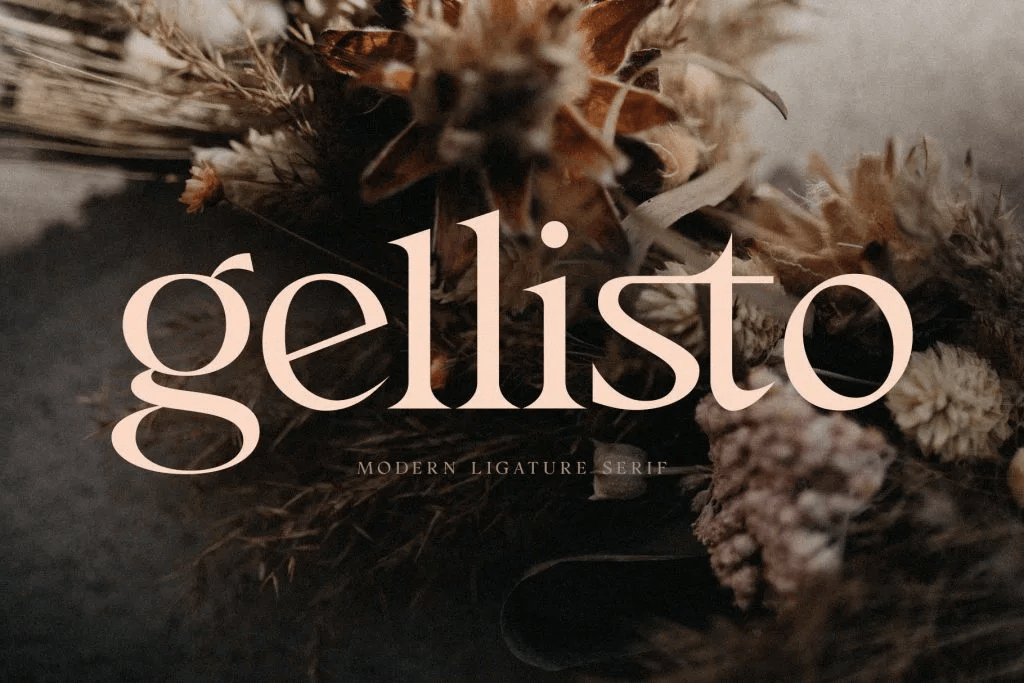
Gellisto is a modern and classy serif typeface designed for elegance and versatility. Perfect for branding, fashion, magazines, packaging, and social media, it brings a refined touch to any design.
Best Sans-Serif Fonts for Food Packaging and Label Design
Sans-serif fonts are widely used for modern, clean, and minimal food branding.
Infogate – Modern Sans Serif Font for Branding & Digital Design
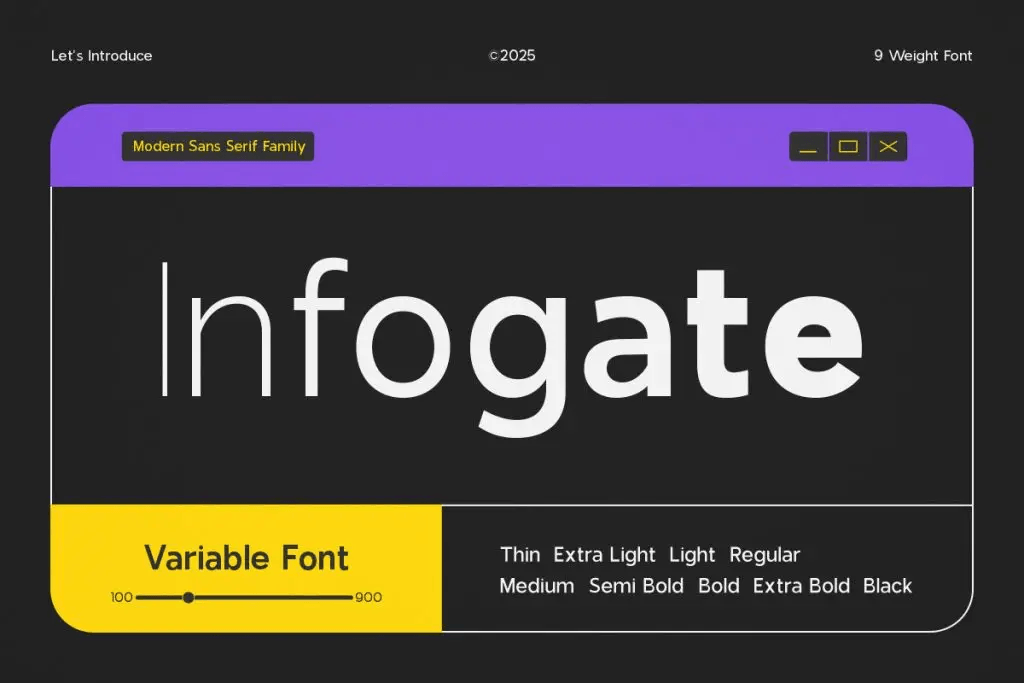
Infongate is a modern sans-serif font designed for branding, digital interfaces, and editorial design. Its clean and versatile letterforms make your projects professional, readable, and visually appealing.
Flaters – Bold Sans Serif Font
Flaters is a bold sans-serif font that combines clarity with style. Ideal for presentations, advertising, and branding, it elevates any creative project.
Handwritten and Script Fonts for Food Labels
Script fonts can add warmth and personality when used carefully.
Snaklet – Bold Handwritten Font for Snack & Dessert Packaging
Final Thoughts on the Best Fonts for Food Packaging and Label Design
Selecting the best fonts for food packaging and label design is about balancing personality, readability, and brand consistency. A strong font choice can elevate your packaging, attract attention, and build trust with consumers.
When choosing fonts for food labels:
- Prioritize readability
- Match font style with product personality
- Use font pairing wisely
- Test fonts across different packaging materials
Great typography doesn’t just make packaging look good; it helps your product tell a story customers can instantly understand.